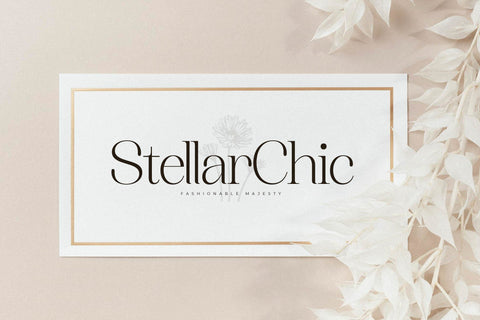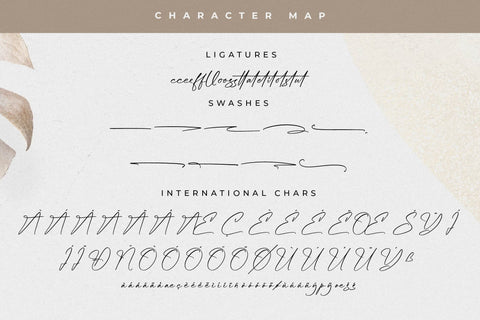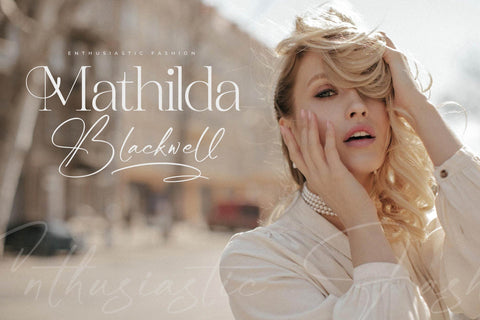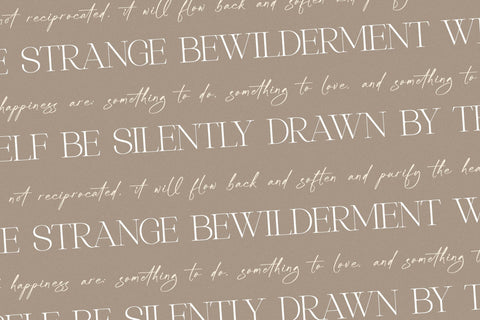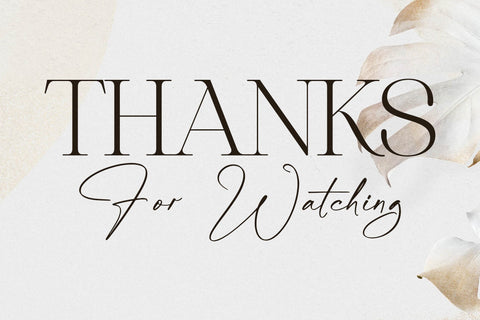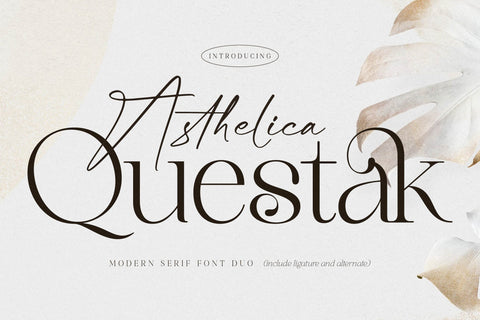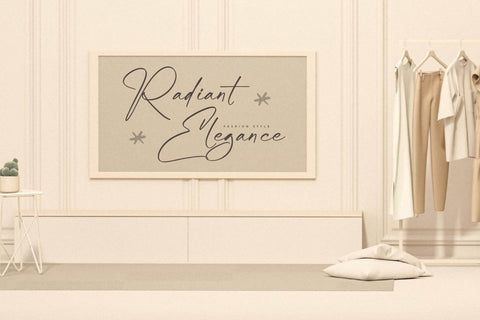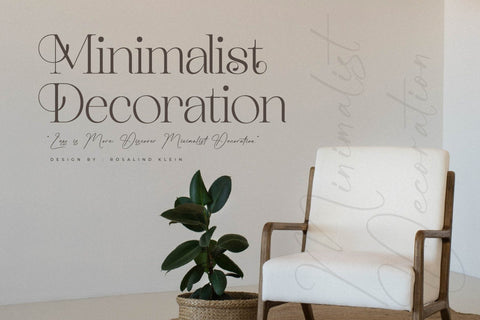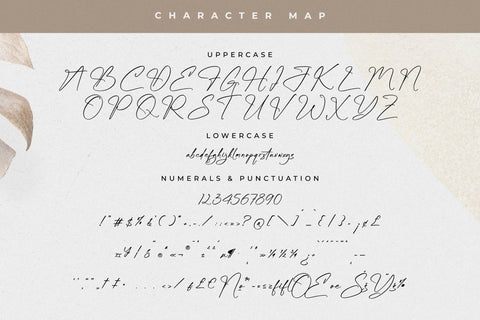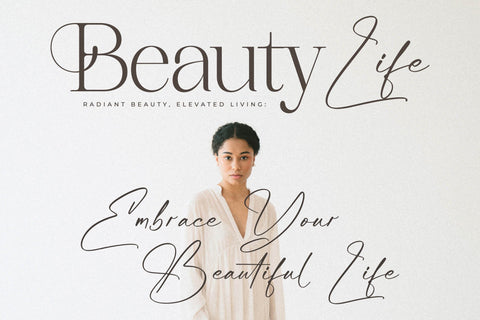
Asthelica Questak Font Duo
Proudly present Asthelica Questak Font Duo , created by Storytype,
A serif and script typeface that has own unique style & modern look.